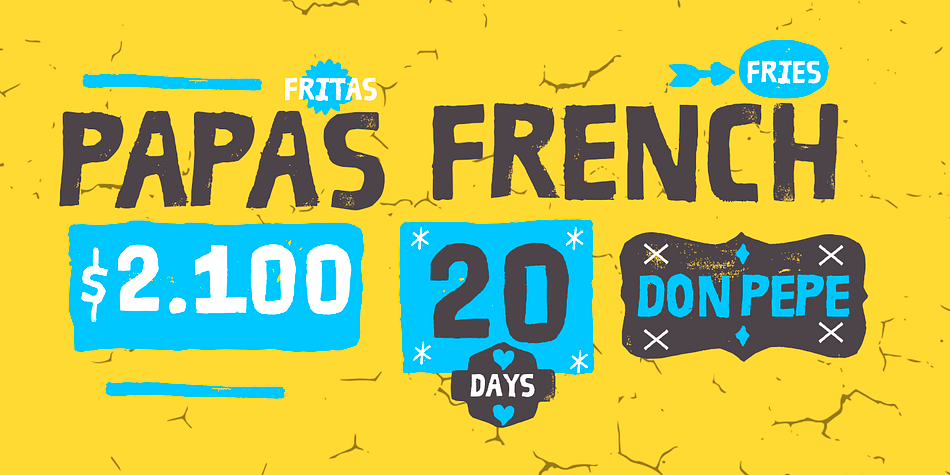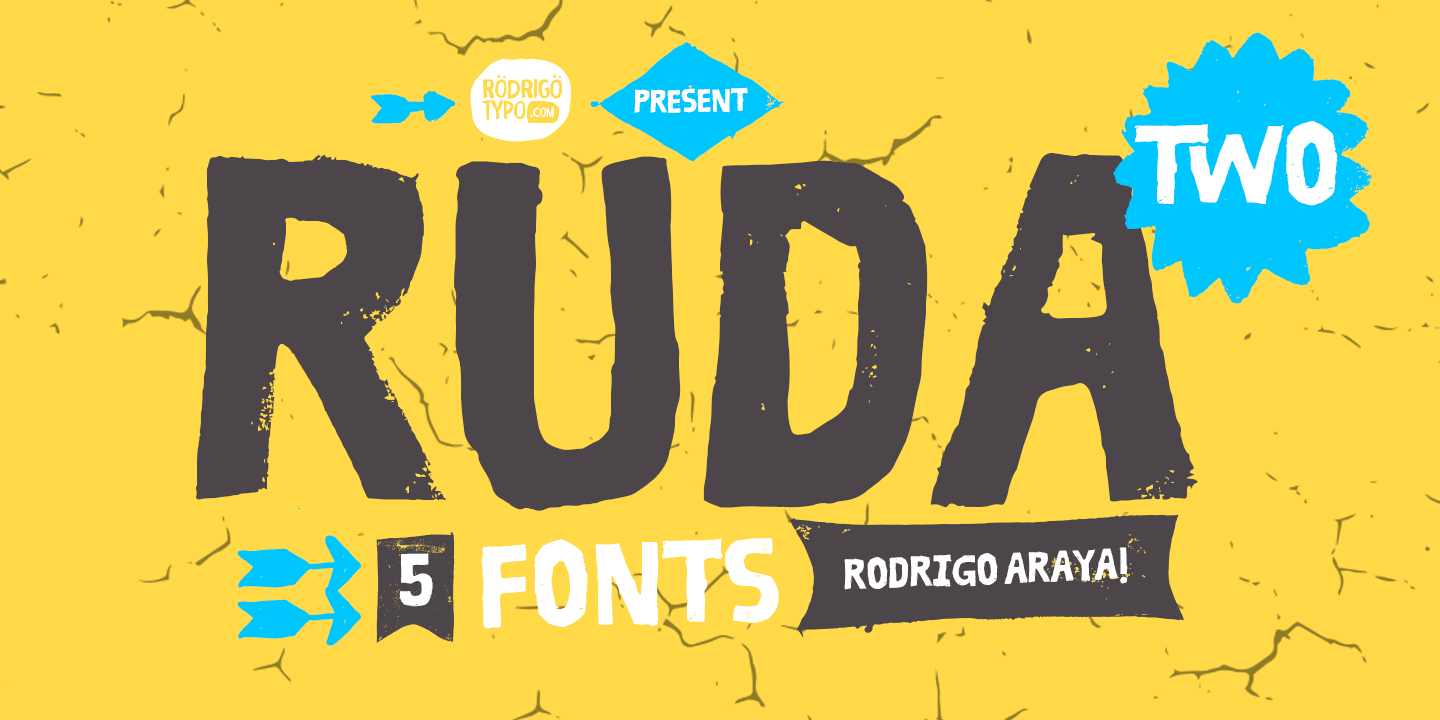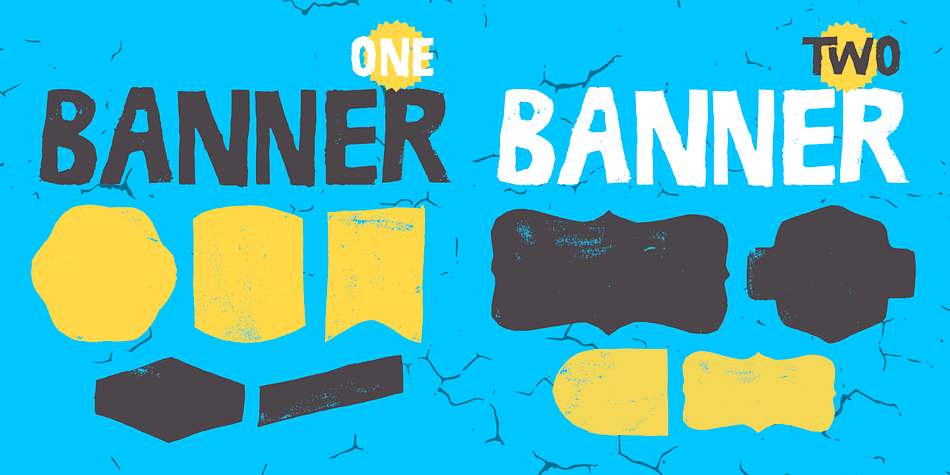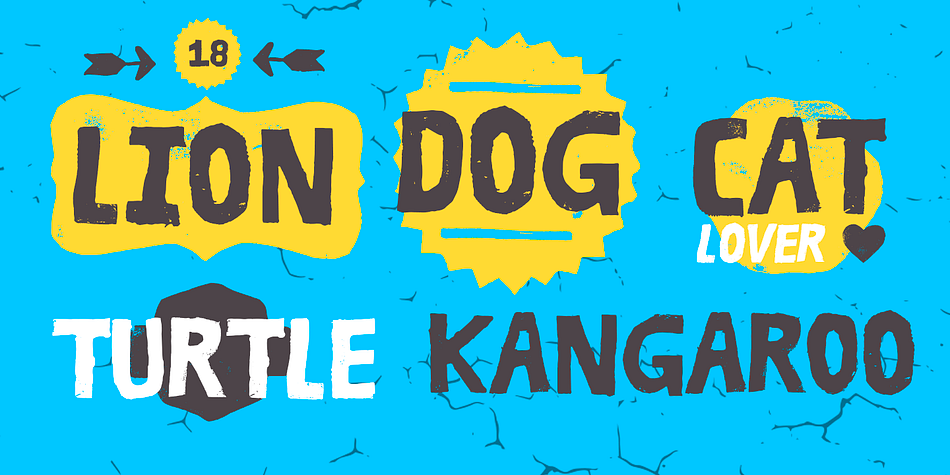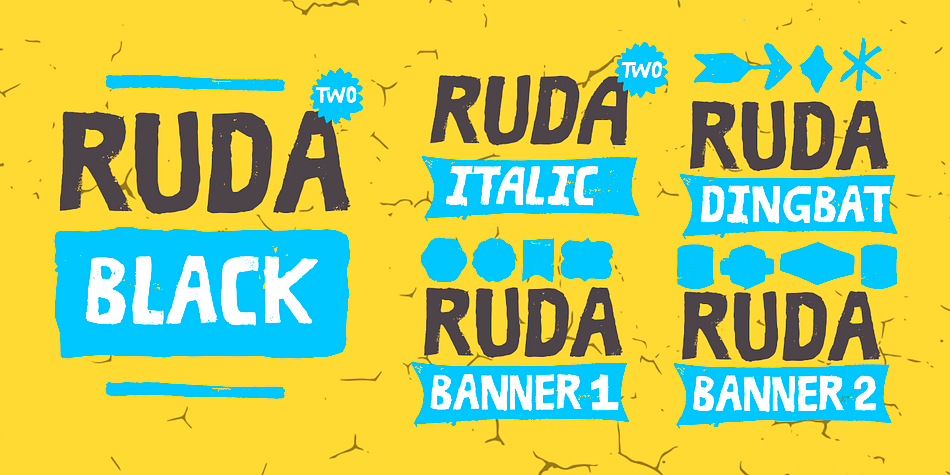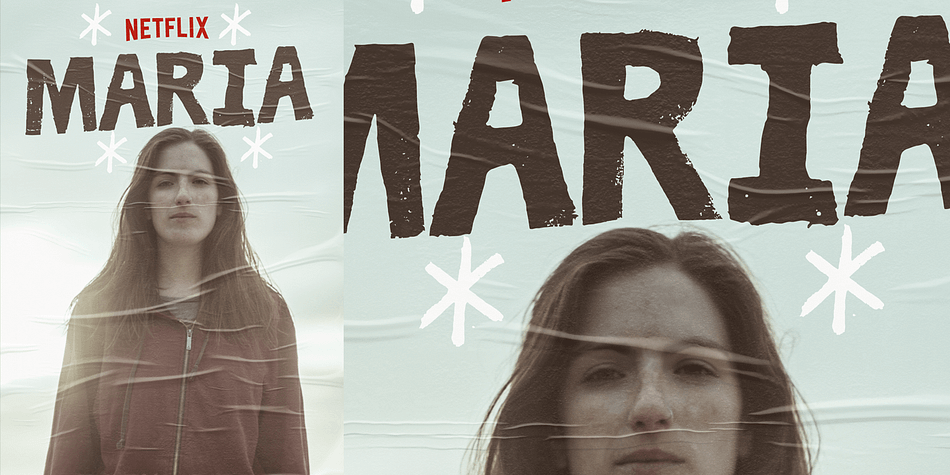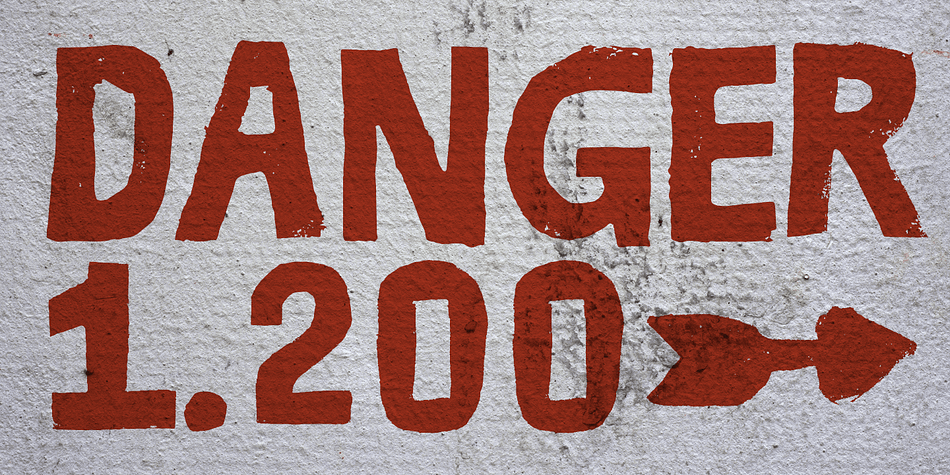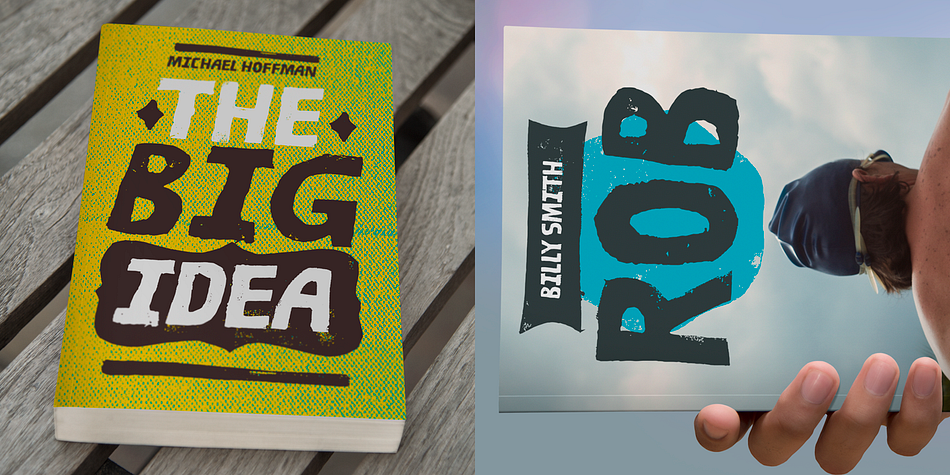
Designed by Rodrigo Araya Salas, Ruda Two is a dingbat, grunge and hand display font family. This typeface has five styles and was published by Rodrigo Typo.
A typography designed completely by hand. Each letter, ornament and banner were designed with ink and different materials.
Ruda Two is a typography for experimental designs inspired by independent film. It is created for children’s graphics or suspense.